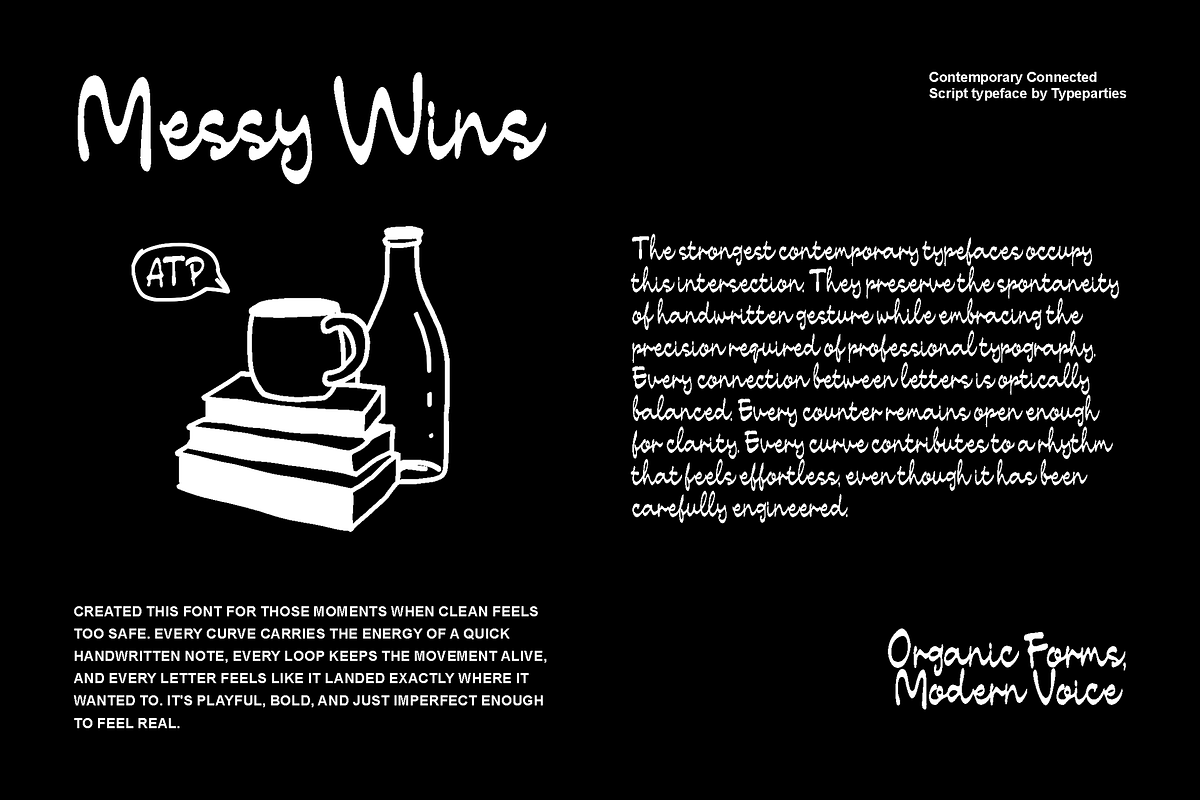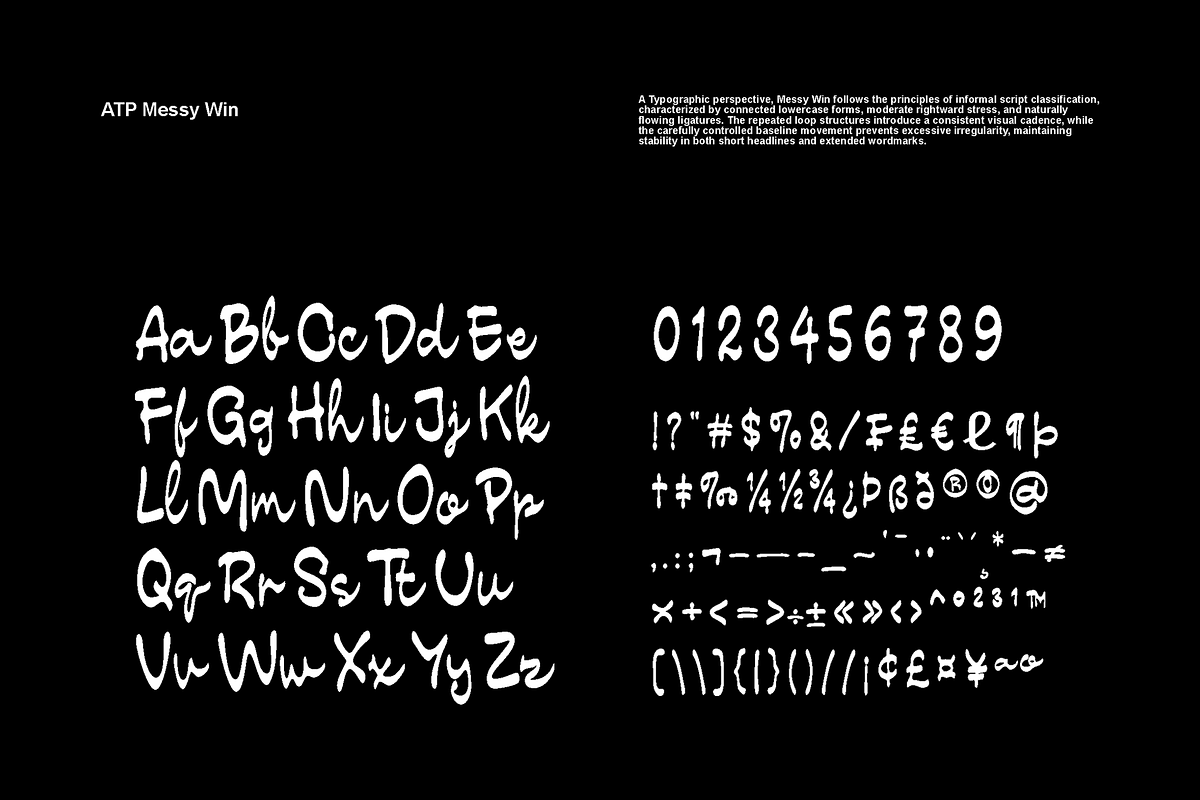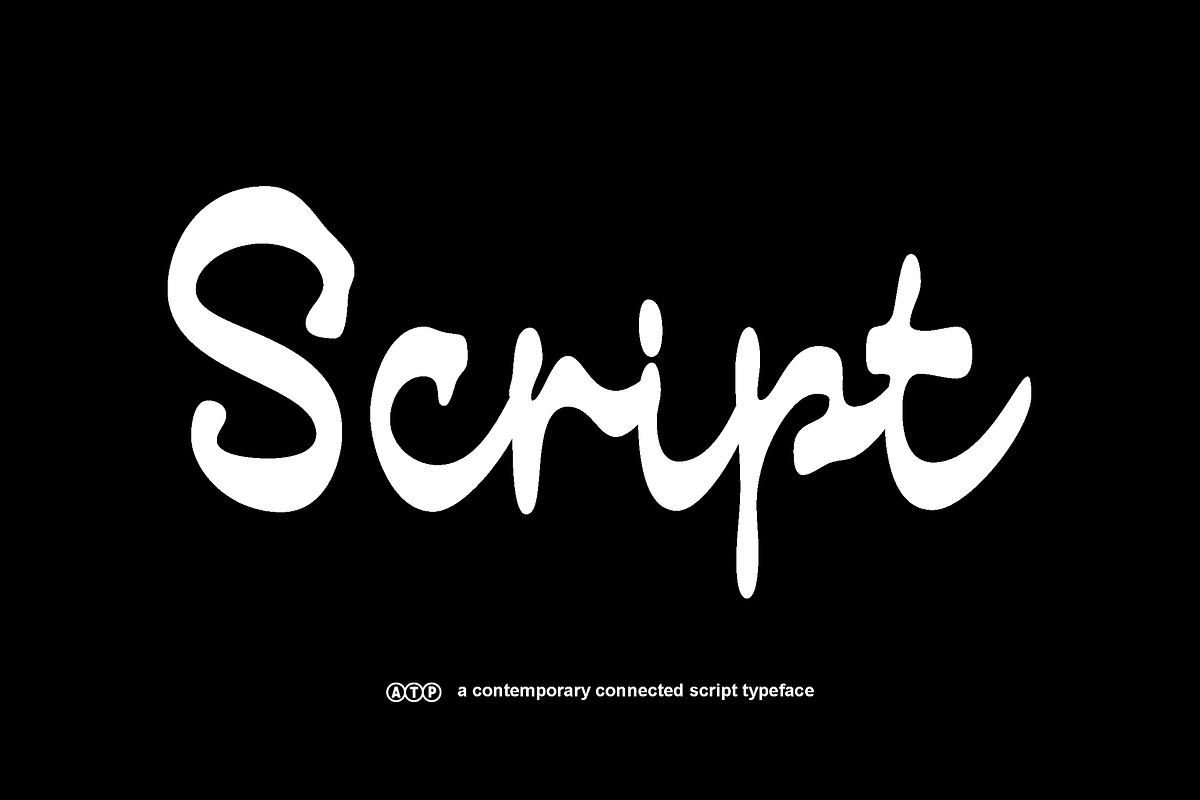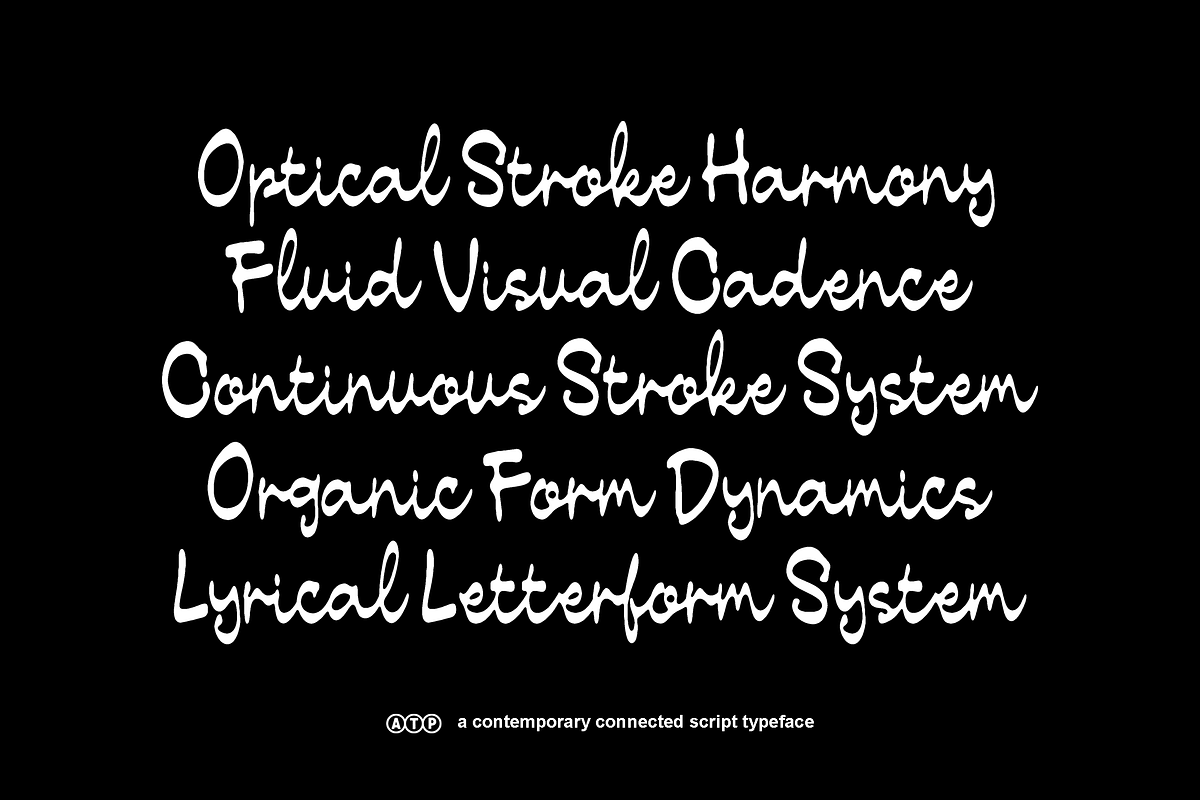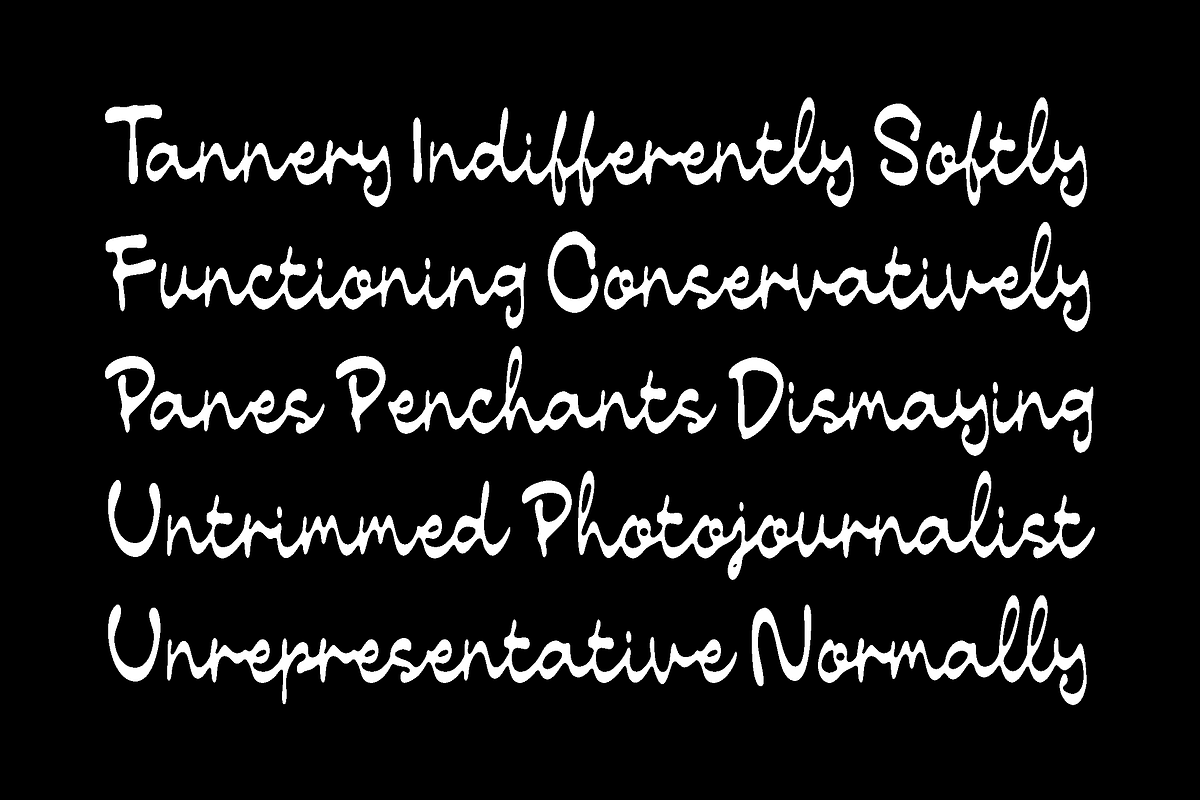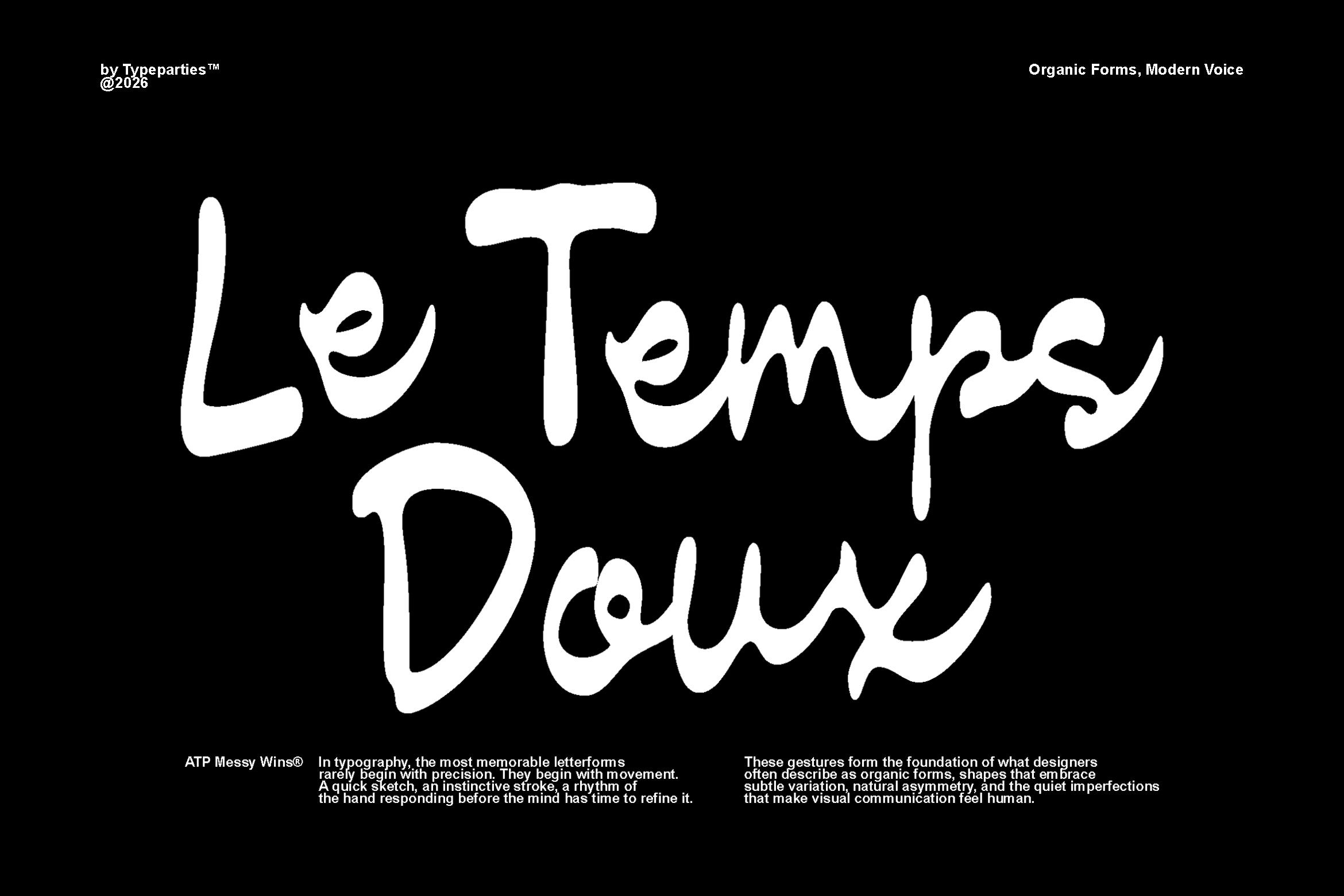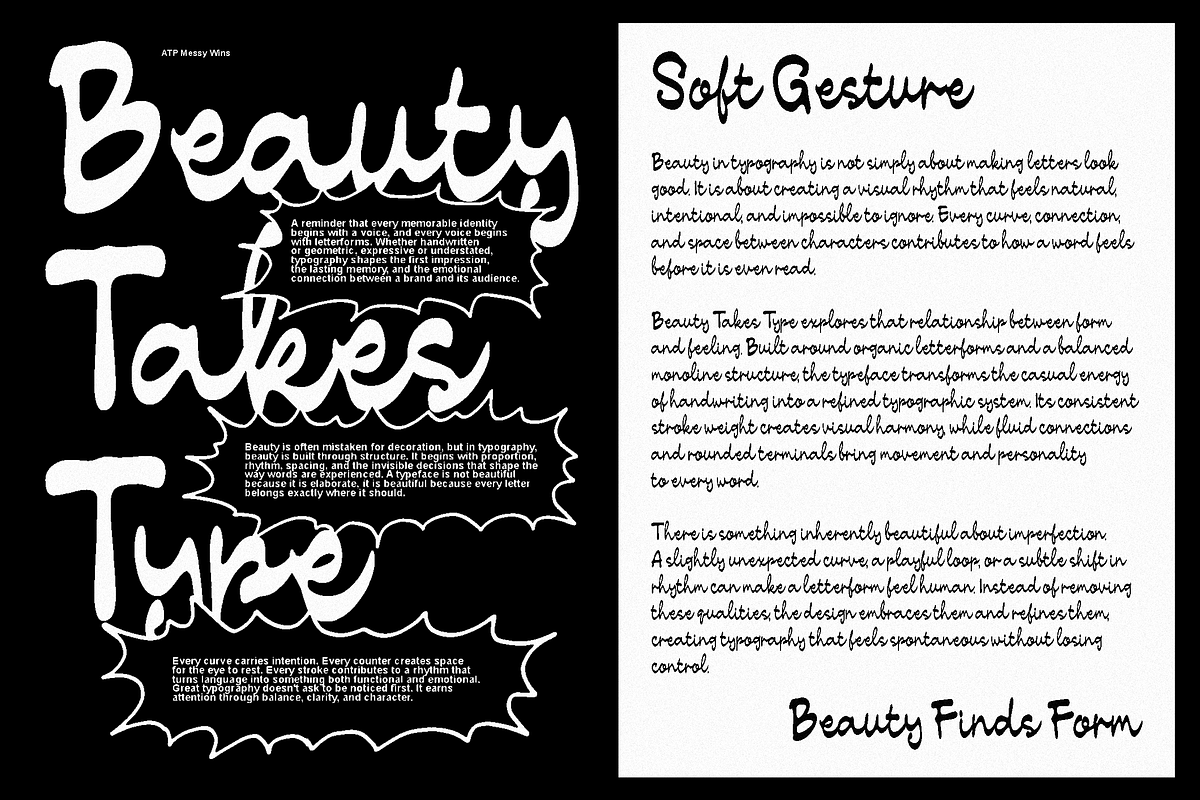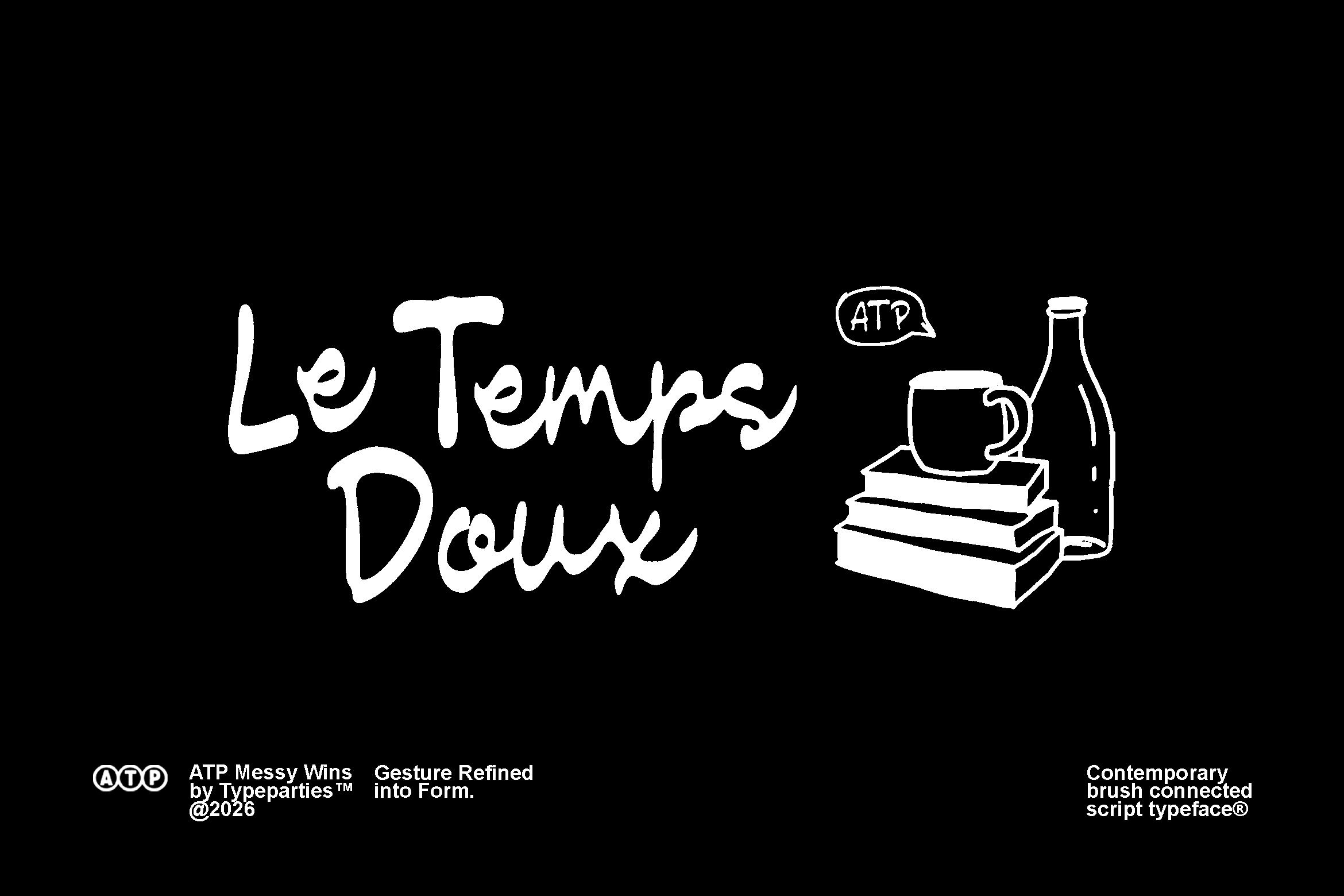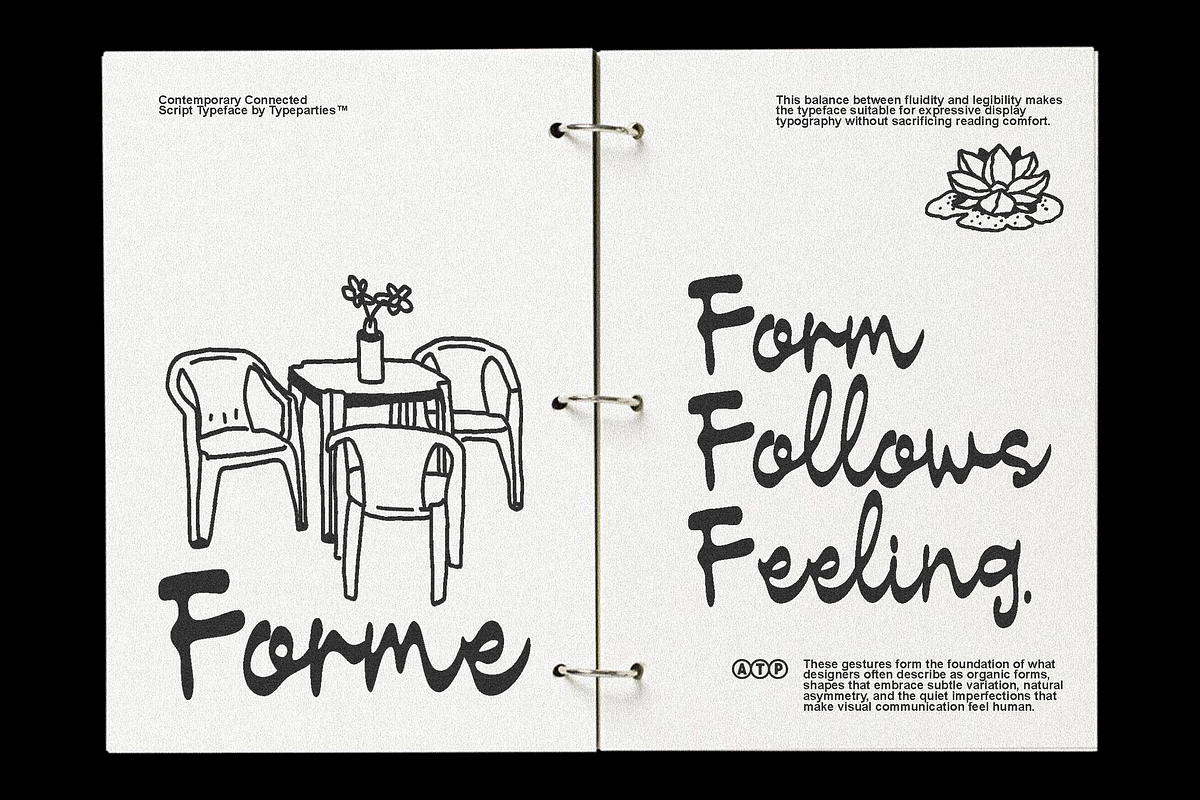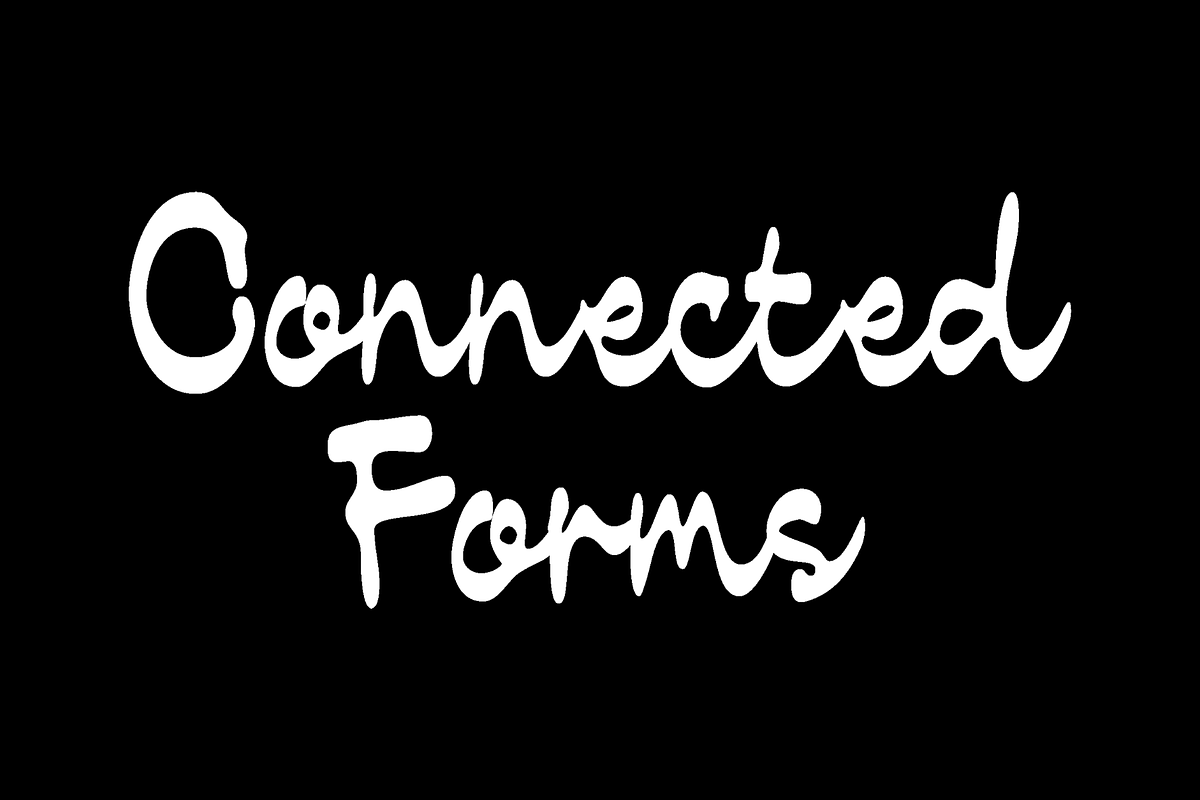
Messy Wins Alt - Bold Script Font
Contemporary connected script typeface built upon a** brush construction**, where stroke contrast is intentionally kept minimal to maximize optical consistency across varying display sizes. The letterforms exhibit a continuous cursive rhythm, allowing characters to connect naturally while preserving individual glyph recognition. This balance between fluidity and legibility makes the typeface suitable for expressive display typography without sacrificing reading comfort.
From a typographic perspective, Hello follows the principles of informal script classification, characterized by connected lowercase forms, moderate rightward stress, and naturally flowing ligatures. The repeated loop structures introduce a consistent visual cadence, while the carefully controlled baseline movement prevents excessive irregularity, maintaining stability in both short headlines and extended wordmarks.
Lowercase
Numerics